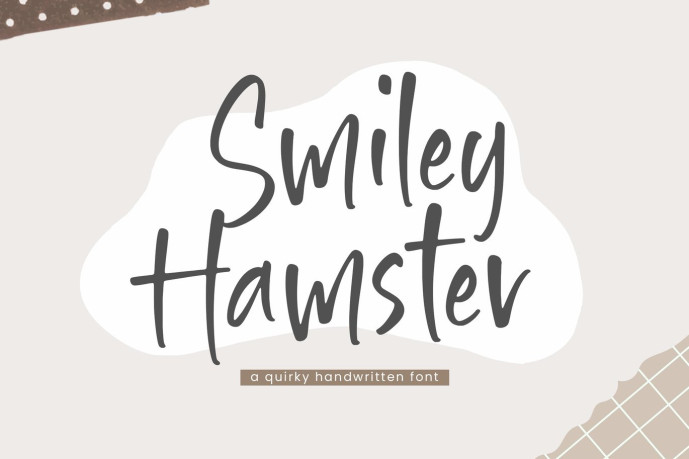
Smiley Hamster A Quirky Handwritten Font, which was created with great care and specially created for you.
Smiley Hamster is perfect for product packaging, branding project, megazine, social media, wedding, or just used to express words above the background.